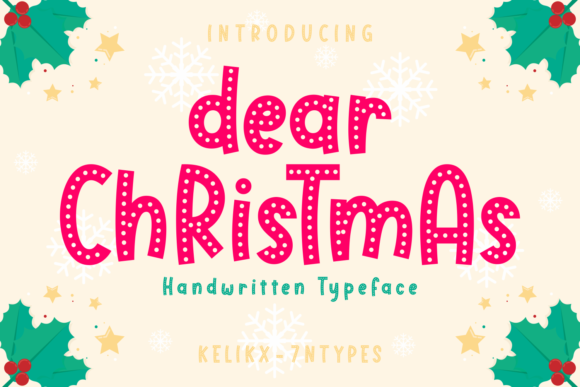
Dive into the charm of the festive season with 'Dear Christmas' - an exquisitely handcrafted display font that captures the magic of winter and Christmas. Its whimsical characters, reminiscent of freshly fallen snow, will dance across your designs, spreading holiday cheer and wonder.
'Dear Christmas' is not just a font; it is a gateway to a world of festive enchantment. Create captivating Christmas cards, enchanting invitations, and heartwarming social media posts that evoke the spirit of the season. Let your designs sparkle with the joy of Christmas, using this font as your creative canvas.
Imagine transforming your digital creations into winter wonderlands, where each letter dances like a snowflake, carrying messages of love, laughter, and goodwill. Whether you're a seasoned designer or just starting your creative journey, 'Dear Christmas' will guide you effortlessly, making your designs shine brighter than a starlit night.
Add a touch of merriment to your branding, packaging, and website designs. 'Dear Christmas' will make your products and services stand out, attracting customers with its warm and inviting appeal. Its unique charm will resonate with audiences of all ages, creating an emotional connection that sparks engagement and drives conversions.
With 'Dear Christmas,' the possibilities are endless. Unleash your creativity and let your designs take center stage, radiating the magic of the festive season. Embrace the joy of Christmas, one letter at a time, and witness the transformation of your designs into heartwarming masterpieces.